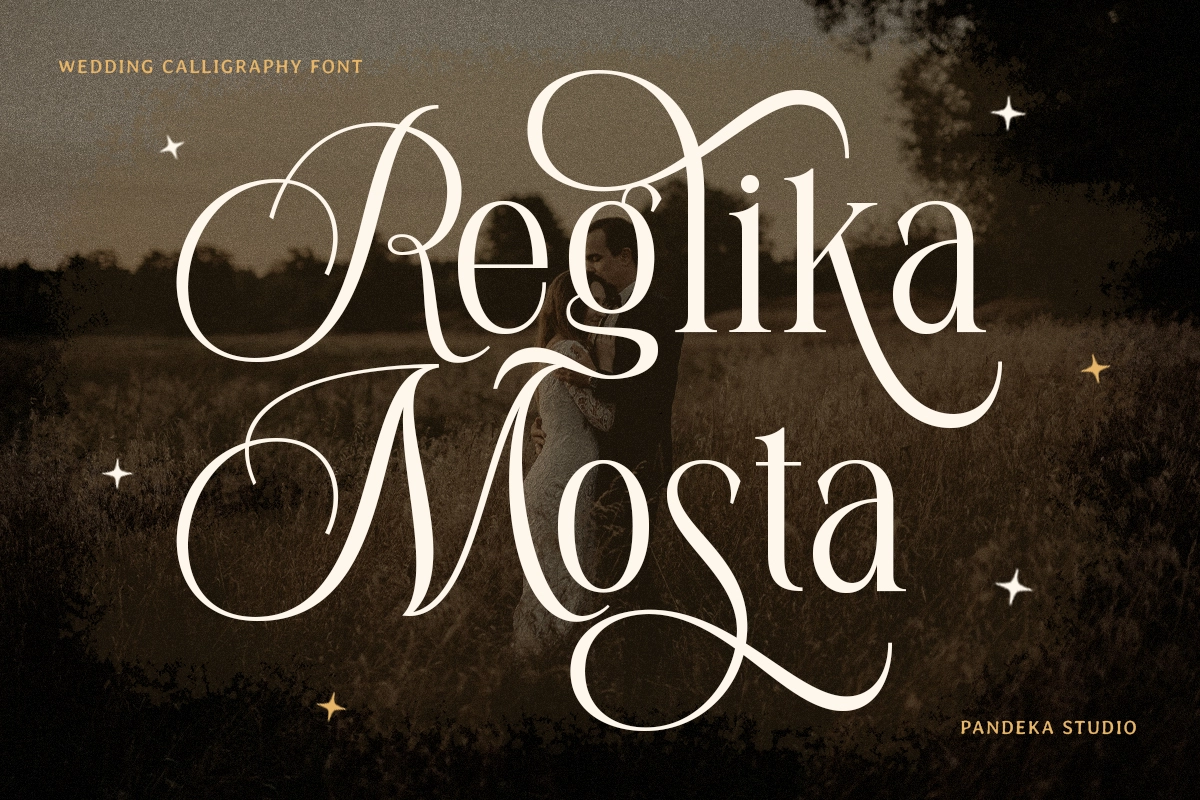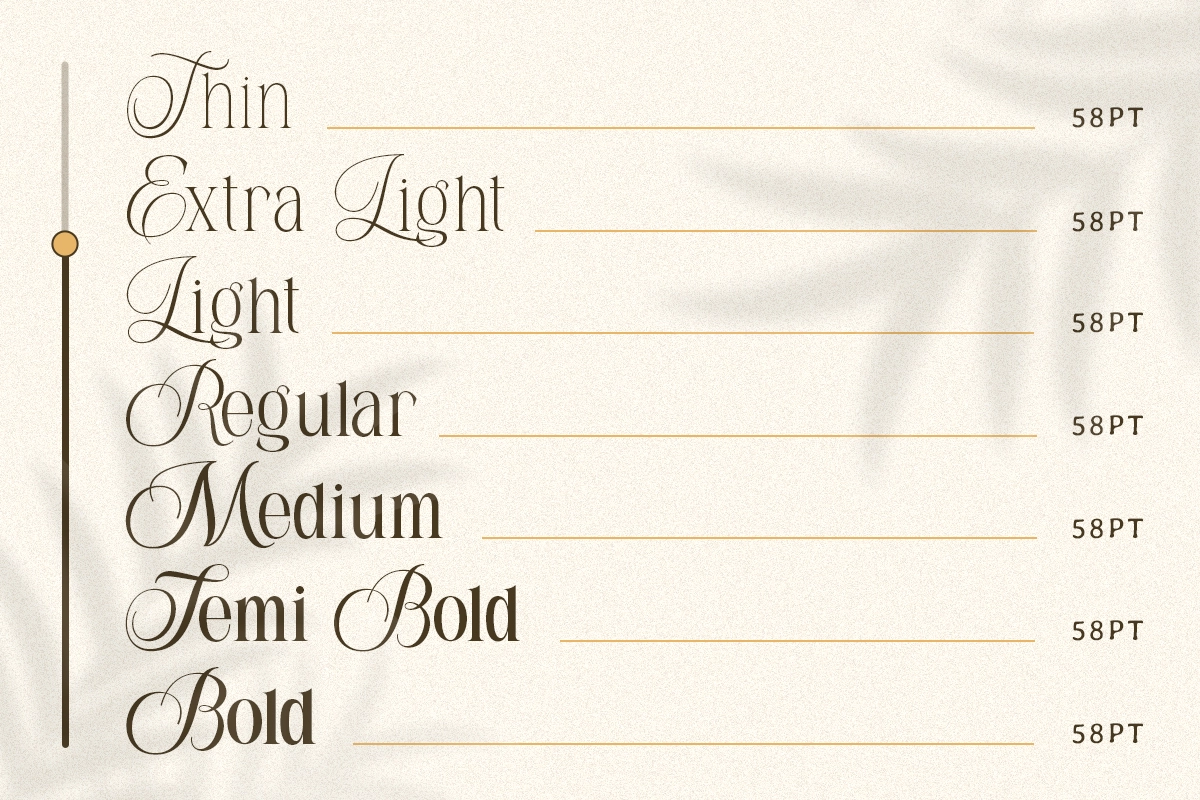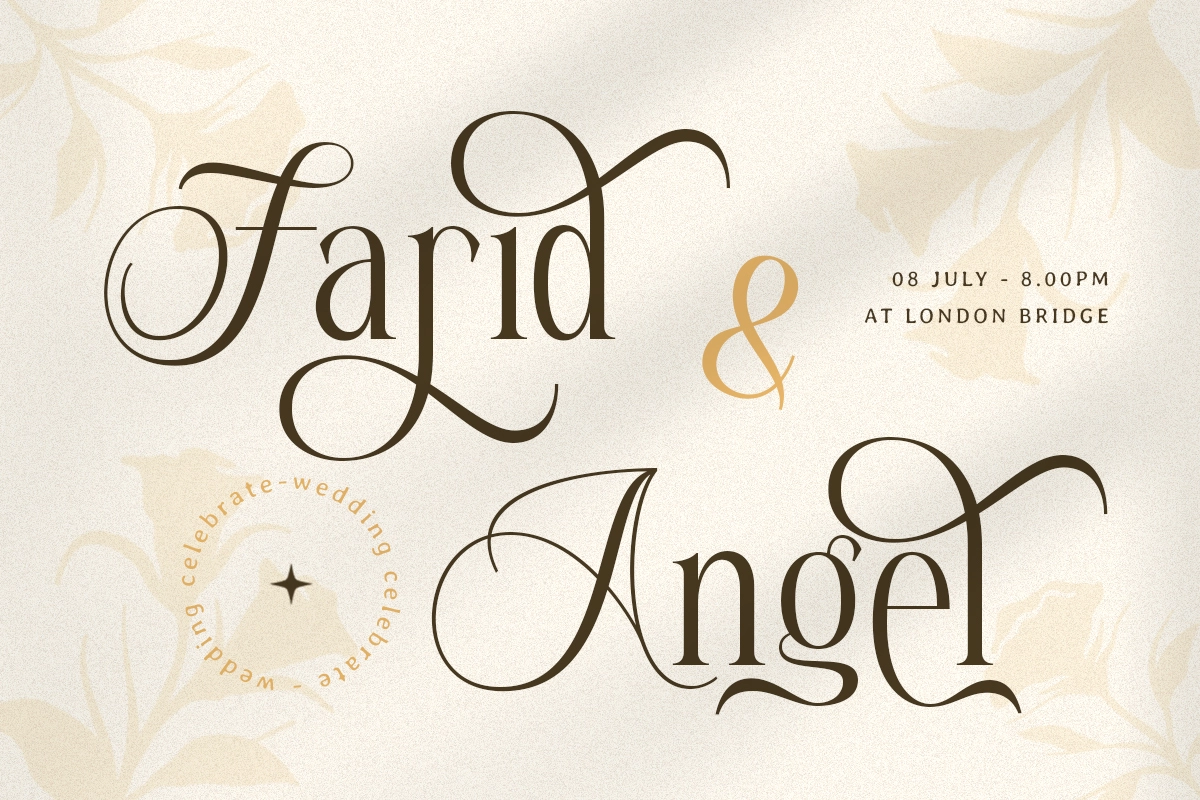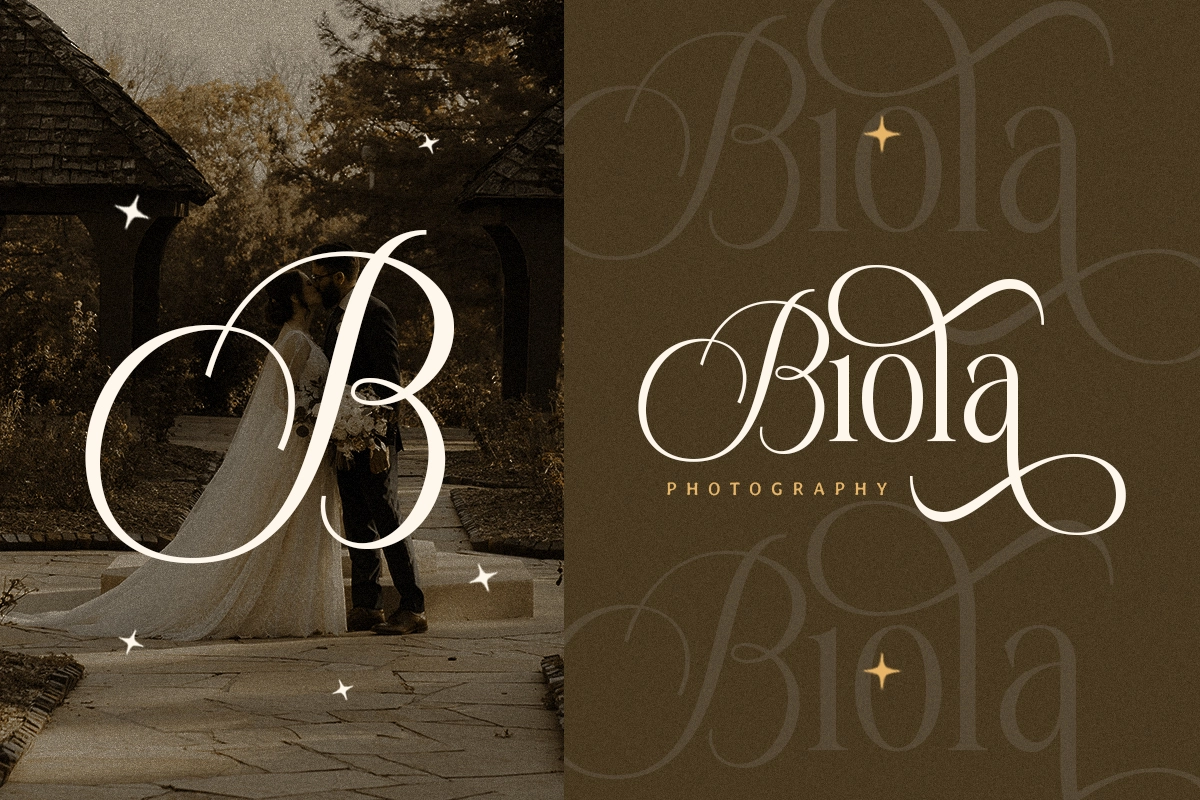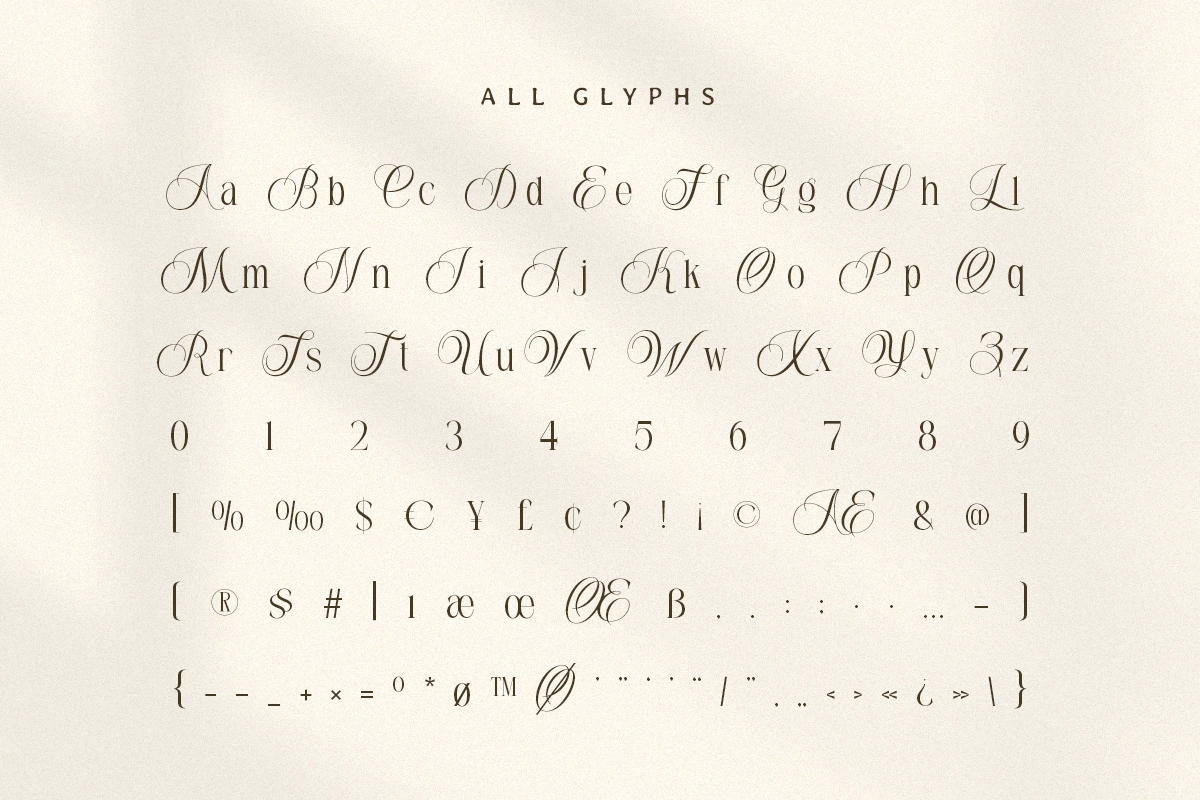
Reglika Mosta - Elegant Script Family Font
Reglika Mosta pairs looping swash capitals with a refined serif lowercase, echoing engraved wedding stationery and formal editorial mastheads. High-contrast strokes and long, curling terminals give the letterforms a genuine calligraphic hand. That construction makes it a wedding calligraphy font built for romance, without losing structure.
The family runs from Thin to Bold across seven weights plus a variable axis, so a hairline flourish headline and a solid semi-bold subhead can sit inside one type family. Use it for wedding invitations, save-the-dates, monograms, editorial headlines, luxury branding, boutique packaging, event signage, and formal certificates.
• Variable Font plus 7 static weights: from Thin to Bold;
• Uppercase & lowercase;
• Numerals, punctuation & symbols;
• 23+ elegant alternates;